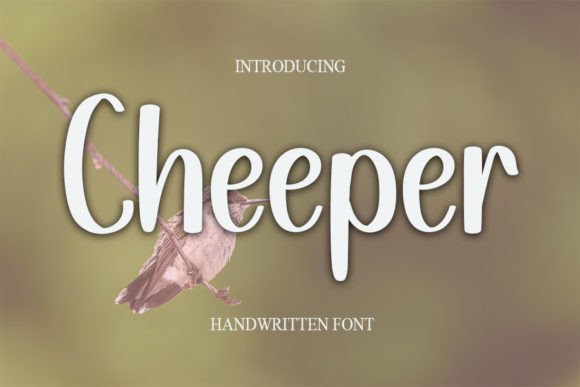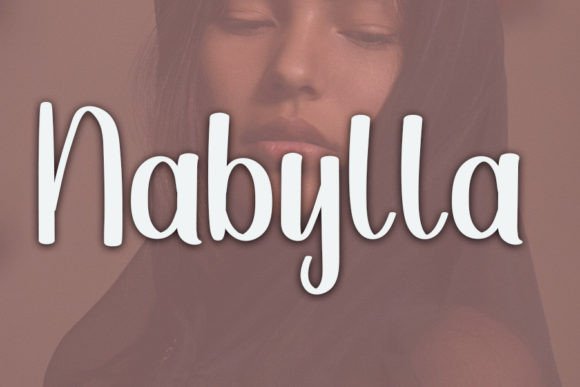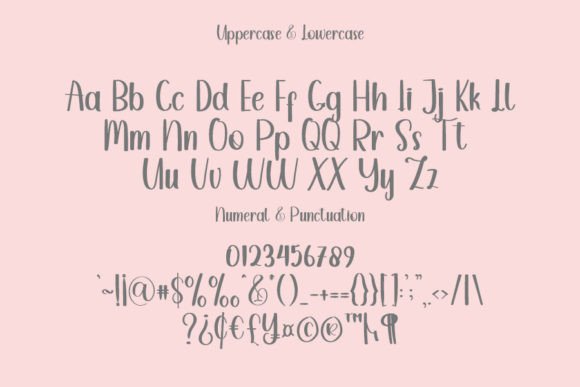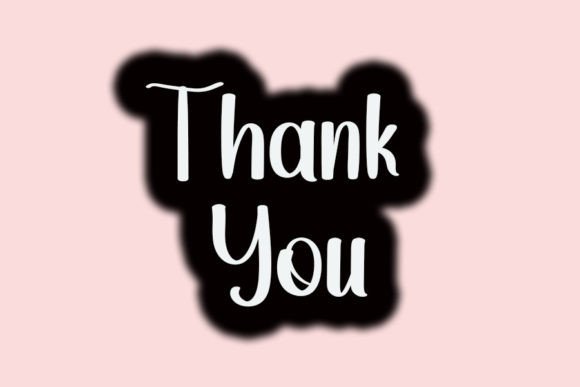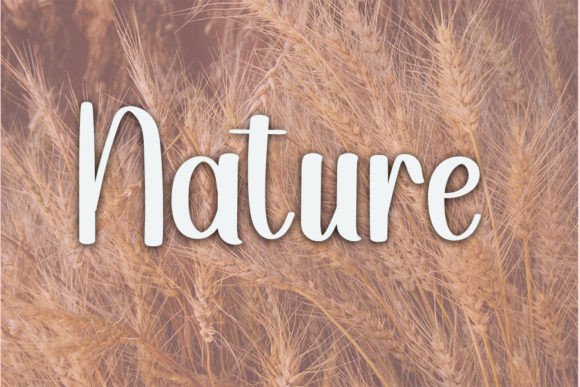
**Cheeper Handwritten Font: Modern Elegance with a Classic Touch**
Cheeper is a stylish handwritten font that seamlessly blends modern elegance with a classic touch. Its spotless form, inspired by classic calligraphy, gives your design projects a unique and sophisticated look. Here’s why Cheeper is the perfect choice for enhancing the beauty of your creations:
1. **Modern Vibes:** Cheeper exudes a contemporary feel that’s perfect for today’s design trends. Its clean lines and stylish curves make it a versatile choice for various design applications.
2. **Classic Calligraphy:** While Cheeper boasts a modern aesthetic, it also pays homage to classic calligraphy. This combination of modernity and tradition gives the font a timeless appeal.
3. **Balanced Form:** The font strikes a balance between thin and thick strokes, resulting in a harmonious and well-proportioned look. This balance makes Cheeper ideal for a wide range of design projects.
4. **Varied Style:** Cheeper offers variations in its style, allowing you to experiment with different looks within a single font. This versatility enables you to customize your designs and add a unique touch.
5. **Elegance and Sophistication:** Cheeper’s elegant letterforms exude sophistication. It’s an excellent choice for projects that require a touch of refinement, such as invitations, branding, and more.
6. **Versatile Application:** Cheeper’s versatility makes it suitable for a wide array of design contexts. Whether you’re working on logos, branding, invitations, or social media posts, Cheeper complements your vision.
7. **User-Friendly:** Cheeper is designed to be user-friendly, making it accessible to both seasoned designers and newcomers. You can easily incorporate it into your projects and adjust it to meet your needs.
8. **Timeless Appeal:** Cheeper’s blend of modernity and classic calligraphy ensures that your designs remain relevant and visually appealing over time. It’s a font that stands the test of trends.
9. **Brand Enhancement:** If you’re developing a brand identity, Cheeper can help you achieve a polished and contemporary image. Its clean and stylish design resonates with modern audiences.
10. **Customization:** Cheeper allows you to customize your designs with ease. Experiment with different styles and variations to create unique and captivating visuals.
Elevate your design projects with the modern elegance and classic charm of Cheeper handwritten font. Whether you’re working on branding, invitations, or any other creative endeavor, Cheeper adds a touch of sophistication and uniqueness. Embrace its clean lines and stylish curves to create designs that stand out and leave a lasting impression.